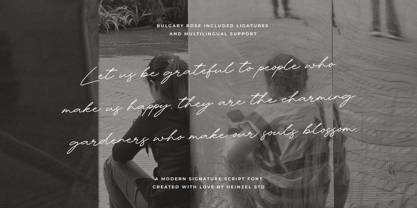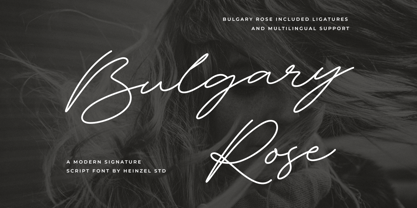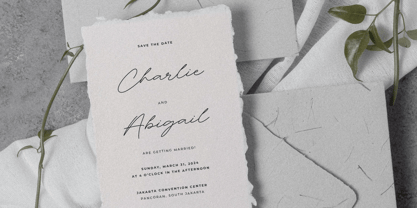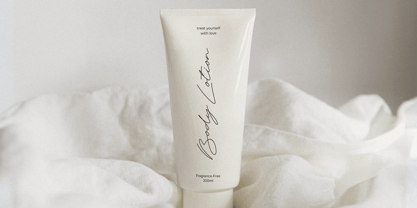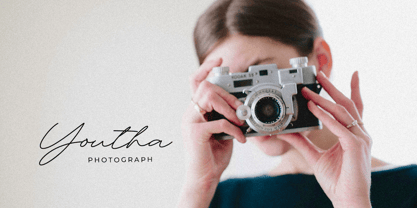
Bulgary Rose
von Heinzel Std
Die Schriftfamilie Bulgary Rose wurde von Nofi Sofyan Hadi entworfen und von Heinzel Std veröffentlicht. Bulgary Rose enthält 1 Stile.
Bulgary Rose is a Signature Script Font, described by an elegant touch, perfect for your favorite projects. It looks stunning on wedding invitations, thank you cards, quotes, greeting cards, logos, business cards, social media, magazines, marketing materials, and every other design which needs a handwritten touch. Fall in love with its incredibly distinct and timeless style and use it to create spectacular designs!
Designer: Nofi Sofyan Hadi
Herausgeber: Heinzel Std
Foundry: Heinzel Std
Eigentümer des Designs: Heinzel Std